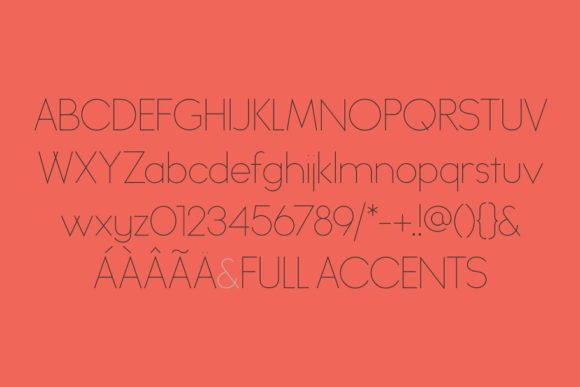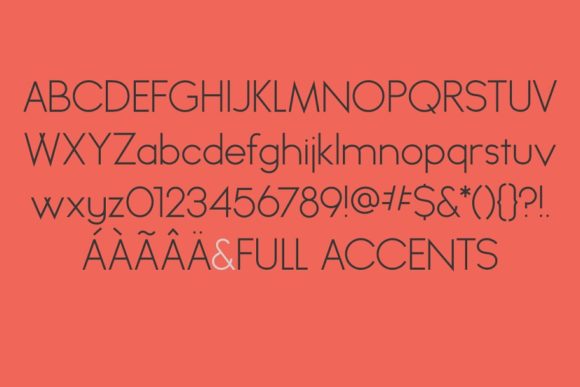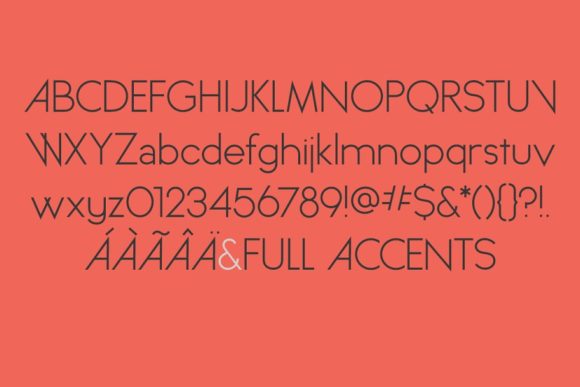
Introducing Burne Font: The Epitome of Geometric Sans-Serif Elegance
Burne is a geometric sans-serif font family that embodies a clean and simplistic feel, making it an ideal choice for designers and crafters seeking a modern and sophisticated typographic solution. With its precise lines, balanced proportions, and exceptional legibility, Burne Font is poised to elevate your designs to new heights.
The Genesis of Burne Font
Burne Font is the brainchild of meticulous typographic craftsmanship, aimed at creating a font family that seamlessly blends geometric simplicity with aesthetic appeal. The design process involved a deep dive into the principles of geometric sans-serif fonts, ensuring that each letterform is not only visually appealing but also highly legible across various applications.
Key Features of Burne Font
- Geometric Design: Burne’s design is rooted in geometric shapes, offering a clean and modern look that suits a wide range of design needs.
- Sans-Serif Elegance: The font’s sans-serif nature lends it a contemporary feel, making it perfect for headings, subheadings, and body text.
- Clean and Simplistic: The clean lines and simplistic design ensure that the font remains versatile and adaptable to various design contexts.
- Exceptional Legibility: Burne Font is optimized for readability, ensuring that your messages are conveyed clearly and effectively.
Applications of Burne Font
The versatility of Burne Font makes it suitable for a myriad of applications, including but not limited to:
- Branding and Logo Design: Its geometric and modern look makes it an excellent choice for creating logos and brand identities.
- Web Design: Burne Font’s legibility and clean design make it perfect for web typography, enhancing user experience.
- Print Design: Whether it’s brochures, posters, or business cards, Burne Font adds a touch of sophistication and elegance.
- Packaging: The font’s modern appeal makes it suitable for product packaging, helping brands stand out on the shelves.
Why Choose Burne Font?
In a world where typography plays a crucial role in communication and brand identity, choosing the right font is paramount. Burne Font stands out for several reasons:
- Universal Appeal: Its geometric simplicity and clean lines give it a universal appeal that transcends cultural and linguistic barriers.
- Flexibility: Burne Font comes in various weights, allowing designers to use it for both headings and body text, creating a cohesive visual language.
- Timelessness: The font’s design is timeless, avoiding trends and ensuring that your designs remain relevant for years to come.
Burne Font represents a harmonious blend of geometric precision, simplicity, and elegance. Whether you’re a designer looking to elevate your brand’s typography or a crafter seeking the perfect font for your project, Burne Font is an exceptional choice. Its versatility, legibility, and modern appeal make it a valuable addition to any design toolkit. Embrace Burne Font for your next project and experience the power of geometric sans-serif typography.
Burne Font is more than just a typeface; it’s a design solution that bridges functionality with aesthetics. By incorporating it into your workflow, you’re not just choosing a font; you’re embracing a design philosophy that values clarity, simplicity, and beauty.